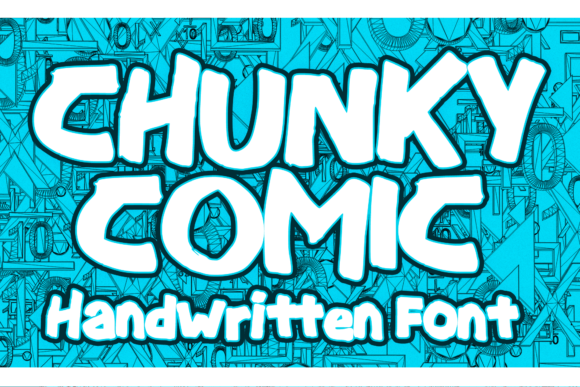
Get Ready to Fall in Love with the Chunky Comic Font
Do you remember the thrill of creating your first comic book character or designing a funny meme for a friend? The excitement of bringing an idea to life with just a few strokes of the pen or a few clicks on the keyboard? That’s the magic of design, and it’s a feeling that never gets old.
For designers, finding the right font can be the difference between a great design and an amazing one. That’s why we’re excited to introduce you to the Chunky Comic Font, a bold and playful font that’s perfect for adding a friendly touch to any project. From t-shirts to book designs, illustrations to stickers, this font is incredibly versatile and is sure to bring a smile to your face every time you use it.
Chunky Comic Font Key Features
- Resolution: The font is designed for use at high resolutions, making it ideal for digital and print media, including comics, graphic novels, and children’s books.
- Unique Characteristics: Chunky Comic Font features bold, rounded edges and a playful, childlike appearance, making it perfect for comic book illustrations, children’s literature, and educational materials.
- Style Options: The font comes in multiple styles, including Regular, Bold, Italic, and Bold Italic, providing designers with a range of options for creating visually appealing text and graphics.
- Scalability: Chunky Comic Font is highly scalable, allowing it to be used effectively in a variety of contexts, from small text to large headings and titles.
Designer Review: Chunky Comic Font
Chunky Comic Font is an interesting choice for designers looking to add a touch of playfulness to their projects. Here’s what I think works well:
- ✨ Bold and eye-catching: The font is undeniably bold and attention-grabbing, making it perfect for headings and titles.
- ✨ Easy to read: Despite its bold appearance, the font is surprisingly easy to read, even at smaller font sizes.
- ✨ Customizable: The font comes in a range of weights and styles, allowing designers to tailor the look to their project’s needs.
- ⚠️ Limited legibility at very small sizes: While the font is generally easy to read, it can become a bit fuzzy and difficult to decipher at very small font sizes.
- ⚠️ Not suitable for formal or professional projects: The font’s playful, comic-book aesthetic may not be the best fit for more serious or formal projects.
- ⚠️ May be too distracting for long blocks of text: The font’s bold appearance can be overwhelming when used for large amounts of text, so it’s best to use it sparingly.
Overall, I think Chunky Comic Font is a great choice for designers looking to add a bit of whimsy to their projects. Just be mindful of its limitations and use it thoughtfully to get the best results.
Tips for Getting the Most Out of Chunky Comic Font
Use Chunky Comic Font to add a playful touch to your designs. It’s perfect for titles, headings, and emphasis. Experiment with different font sizes and colors to create a unique look.
Use Chunky Comic Font for:
- Comic book titles and headings
- Graphic novels and manga
- Playful website headers and footers